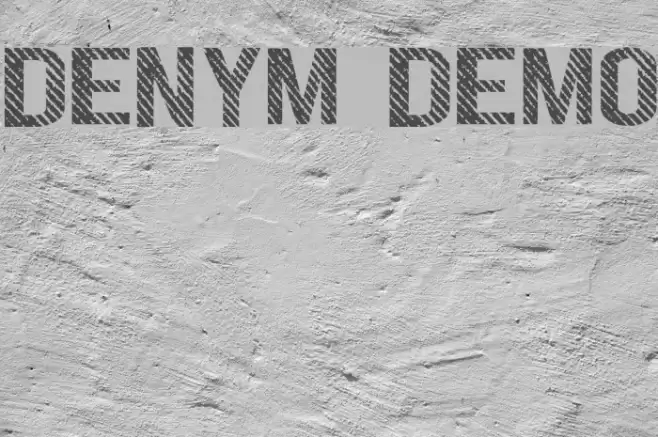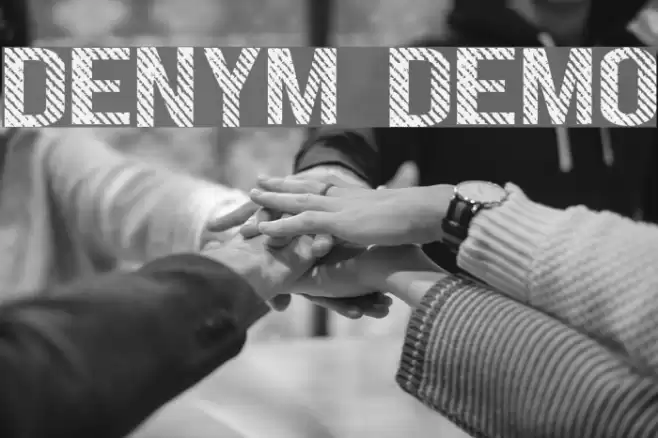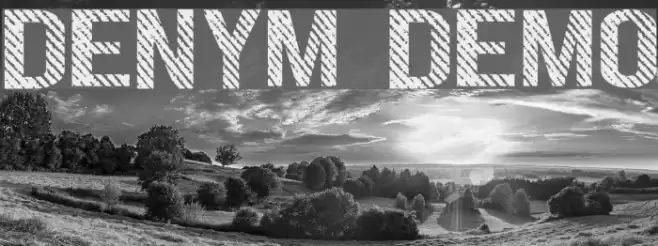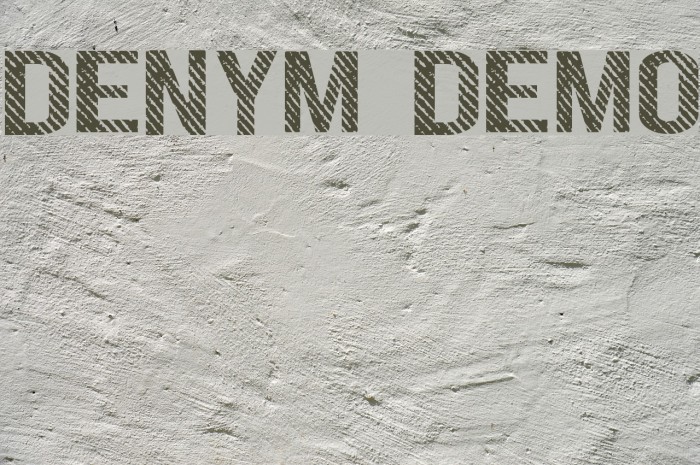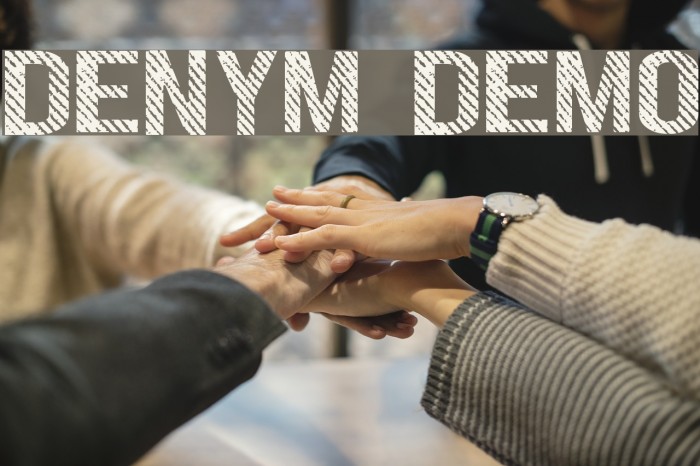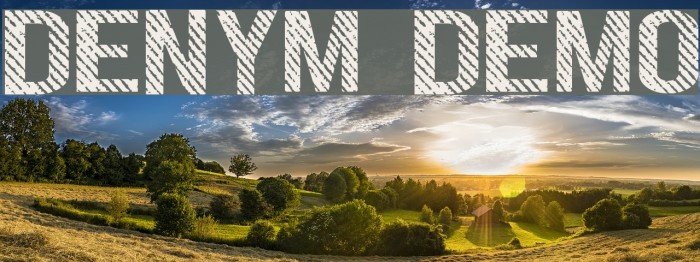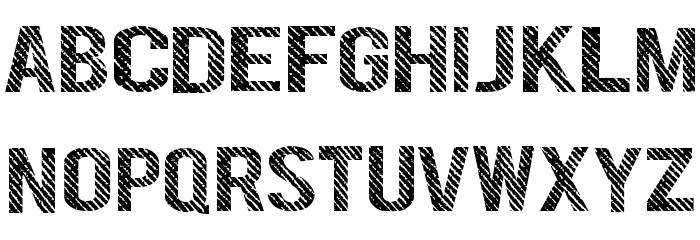
DENYM demo Font
DENYM demo Description
This font features a bold, textured design with a diagonal striped pattern running through each character, giving it a unique and eye-catching appearance. The letters are uppercase, with a strong, geometric structure that conveys a sense of modernity and industrial style. The texture adds depth and dimension, making it suitable for projects that require a distinctive and impactful visual element. The font's boldness ensures readability, while the pattern adds a creative twist, making it ideal for branding, posters, and other design projects that aim to stand out.
Bold, textured font with diagonal stripes for a modern, industrial look from Distorted Eroded fonts.
- Proposed Projects: Ideal for branding, posters, headlines, and any design needing a bold, unique style.
- Overall Style: Modern, Industrial